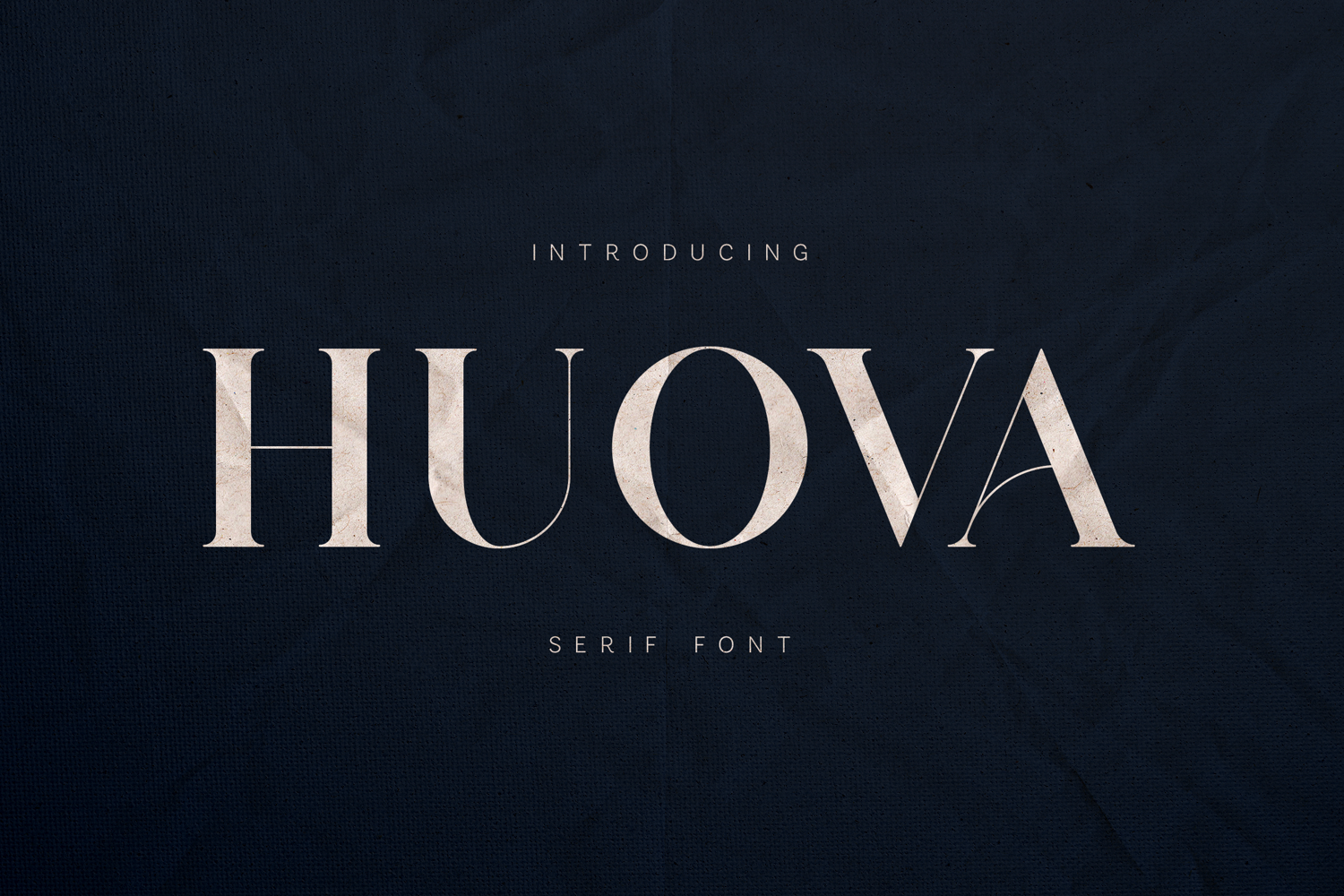
Huova Elegant Modern Serif Font
Huova is a refined modern serif typeface that blends elegance with subtle artistic details.
The font features high-contrast strokes, graceful curves, and distinctive decorative cuts that give each letter a sophisticated personality. These delicate details create a unique rhythm across words, making Huova ideal for expressive typography while remaining clean and readable.
Designed for modern editorial aesthetics, Huova works beautifully in large headlines, luxury branding, and premium visual identities. Its carefully crafted proportions and refined shapes allow it to stand out without overwhelming a design.
Huova brings a balance of elegance and character, making it perfect for designers who want a serif that feels both classic and distinctive.
Perfect For• Luxury branding
• Fashion editorials
• Magazine titles
• Logos & monograms
• Packaging design
• Invitations & stationery
• Beauty and lifestyle brands
• Social media graphics
Features• Uppercase & lowercase letters
• Numbers & punctuation
• Unique decorative serif details
• Clean modern serif structure